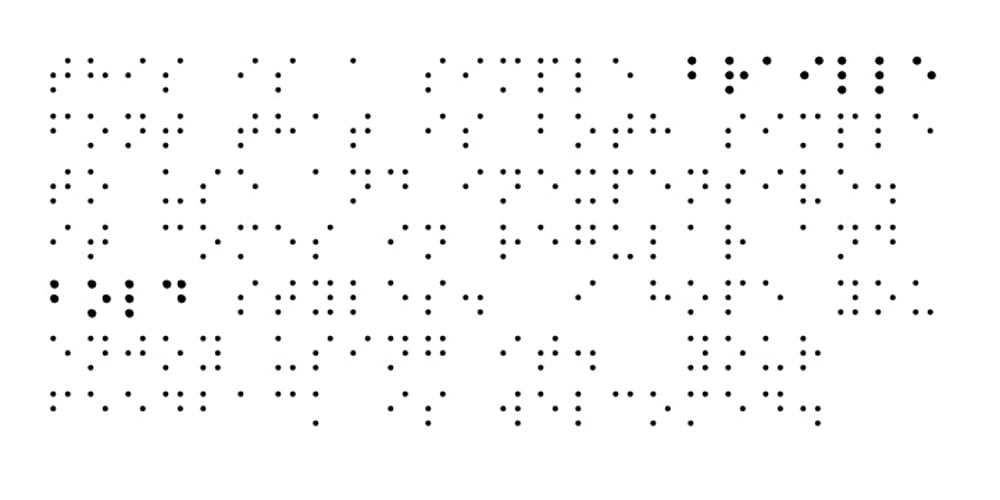
Kaeding Braille
Kaeding Braille font
Kaeding Braille Font Family was designed by Thomas Käding and published by Thomas Käding. Kaeding Braille contains 2 styles and family package options. When I needed a Braille font for a project, it was hard to find one that worked the way I wanted. When I type an ‘A’, I want the dot pattern for an ‘A’. Fonts from the big computer companies have their Braille hidden deep in the unicode and are not easy to use. This new font is very simple, and the dot patterns are matched to the keys on the keyboard. Simply type; no more hunting through unicode pages. If you develop materials for the sight-impaired, check out my Moon Type font also.